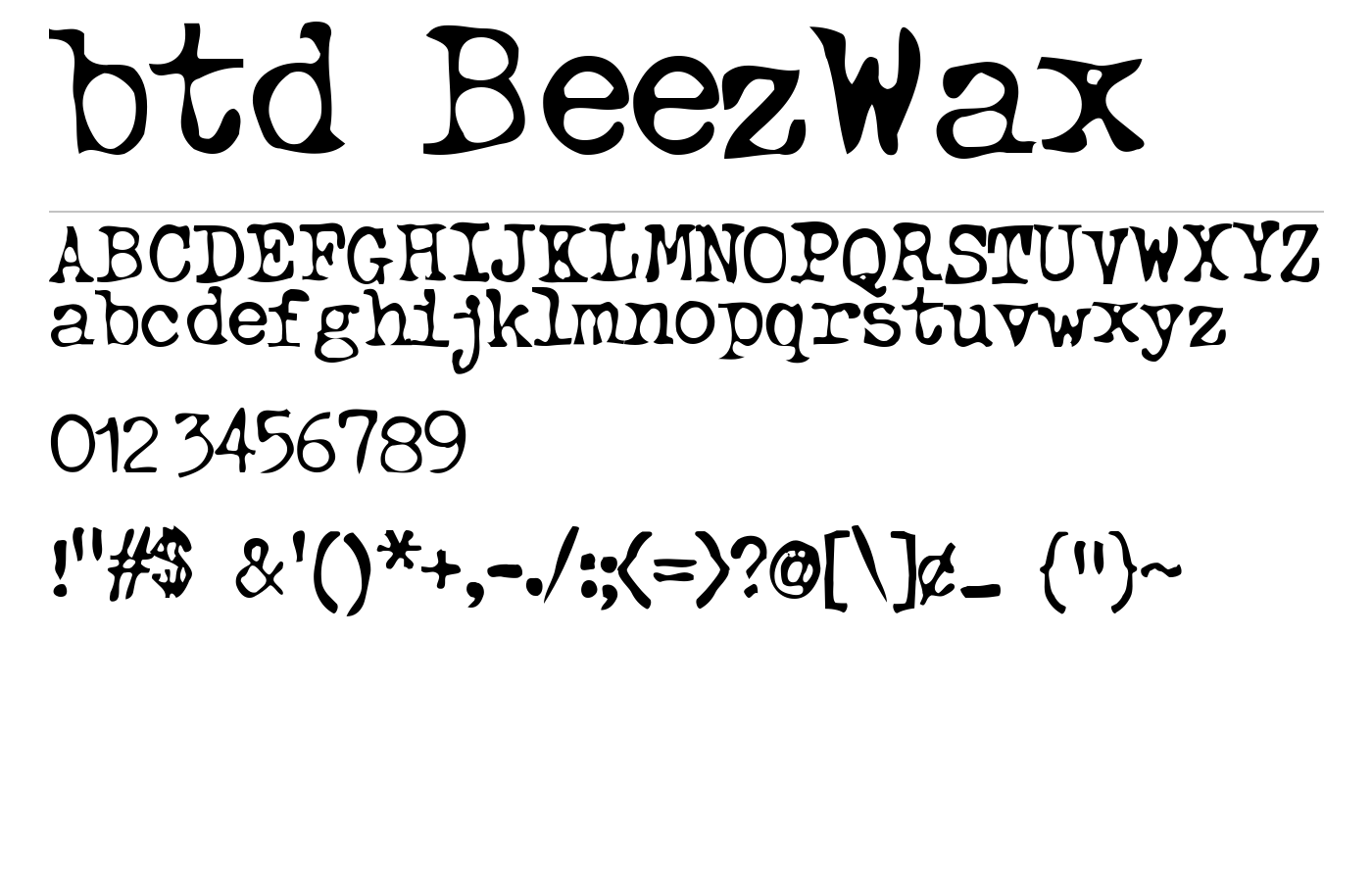
btd BeezWax is a playful serif font characterized by its irregular, slightly warped letterforms and uneven stroke weights, giving it a handcrafted, quirky personality. Its medium weight and moderate contrast combined with whimsical curves make it ideal for creative and informal designs such as posters, branding, and packaging that seek a fun, vintage-inspired vibe. This font shines in display use where its distinctive style can capture attention and add character.
btd BeezWax Font
About btd BeezWax Font
| Font family | btd BeezWax Font |
| Designer | Michael Brittain |